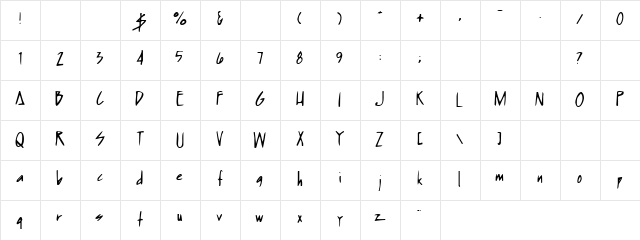
Humpbunny Regular
Design Context for Humpbunny Typeface
Humpbunny is a composed and adaptable typeface that performs quietly and consistently across a wide range of design contexts.
Pro Tip: Pair Humpbunny with a font of contrasting weight or personality to build a more expressive typographic hierarchy.